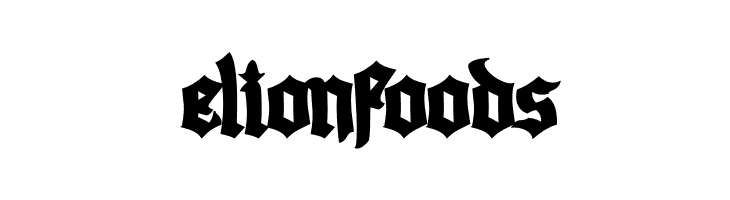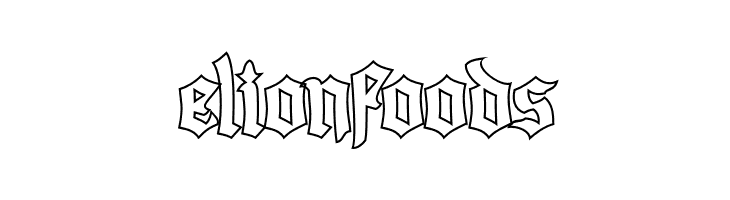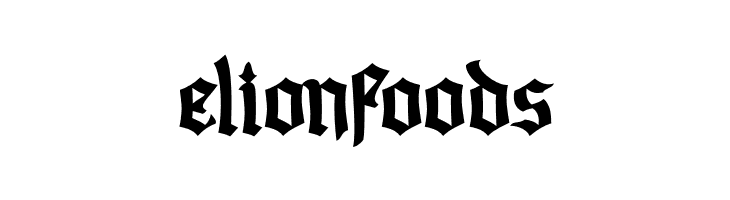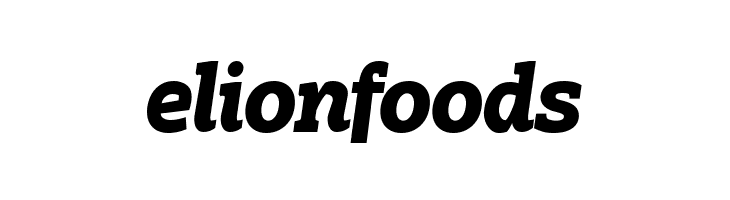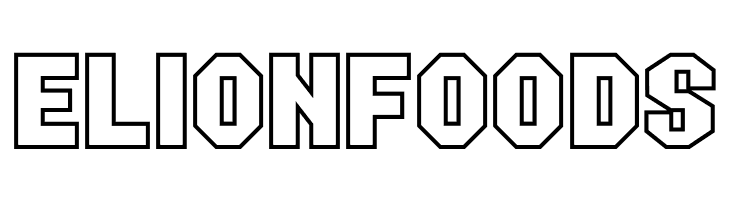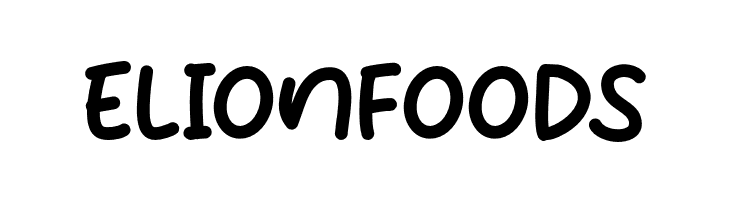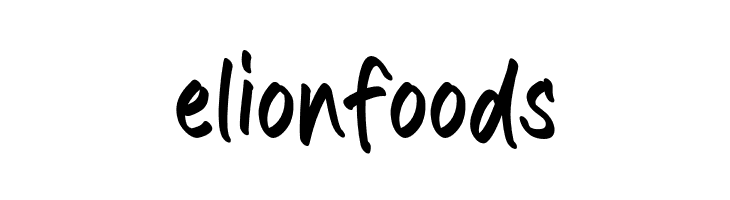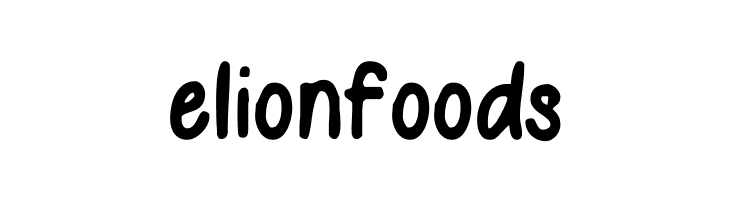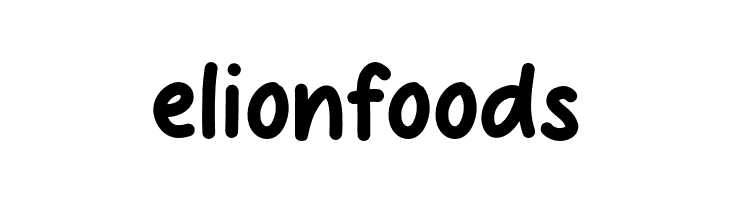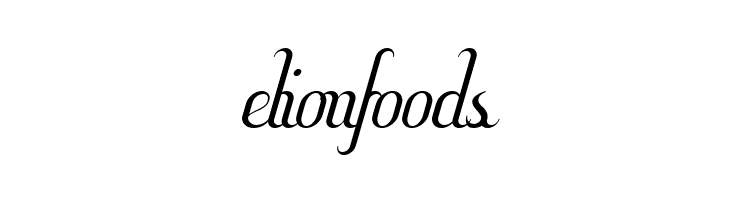
A decorative font with intricate patterns and bold outlines.
A bold, blocky font with thick strokes and rounded edges.
A graceful script font with fluid, interconnected letters and elegant flourishes.
An elegant script font with high contrast and flowing, cursive style.
A bold, elegant script font with flowing curves and dynamic strokes.
A bold, decorative font with intertwined uppercase letters and elegant curves.
An elegant, vertically emphasized font with a classic calligraphic style.
A bold, geometric font with a strong, industrial feel.
A bold, geometric font with a modern, industrial style.
A bold, geometric font with strong, angular lines and a modern aesthetic.
A bold, geometric outline font with a modern, industrial aesthetic.
A playful handwritten font with smooth, flowing lines and a casual style.
A playful, rounded font with a casual, handwritten style.
A flowing, elegant script font with interconnected characters and a modern twist.
A bold, flowing script font with elegant cursive letterforms.
A graceful script font with flowing, interconnected letters and elegant flourishes.
A bold, cursive font with interconnected characters and a strong visual impact.
An elegant, flowing script font with smooth, cursive strokes and graceful curves.
A bold, playful handwritten font with a lively and informal style.
A bold, rounded, and playful hand-drawn font with a whimsical feel.
A playful, rounded font with a hand-drawn, friendly appearance.
A gothic, horror-themed font with intricate, thorn-like embellishments.
A bold, gothic font with sharp, jagged edges and a spooky aesthetic.
A bold, medieval-inspired font with intricate, dramatic styling.
A bold, decorative font with medieval-inspired flourishes.
A bold, Gothic-style font with intricate outlines and decorative elements.
A decorative Blackletter font with intricate, ornate letterforms and a historical elegance.
A bold, modern serif font with strong, thick strokes for impactful designs.
A bold, italic font with a dynamic and modern style.
A medium weight, italic serif font with a modern and elegant style.
A classic serif font with bold uppercase and balanced lowercase letters, offering clear readability.
Elegant serif font with italic style and moderate contrast.